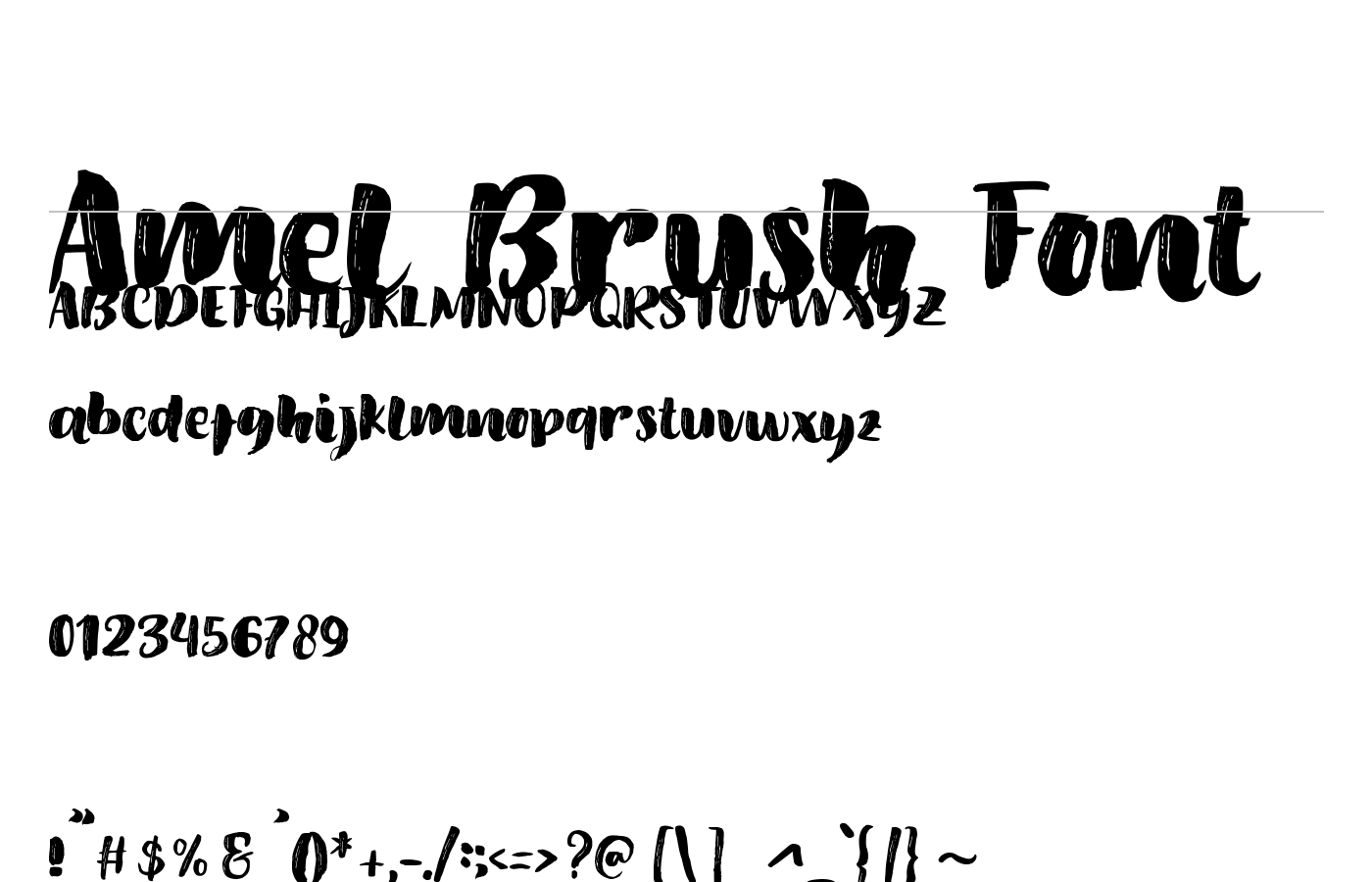
Amel Brush Font is a lively and bold brush script with a strong, hand-painted feel, featuring thick strokes and textured edges that add personality and warmth. Its casual yet striking style makes it perfect for creative projects, branding, posters, and social media where a natural, artistic touch is desired. This font brings energy and friendliness, making it ideal for designs that want to stand out with a handcrafted, modern vibe.
Amel Brush Font
About Amel Brush Font
| Font family | Amel Brush Font |
| Designer | Debut Studio (Ari Fadli) |